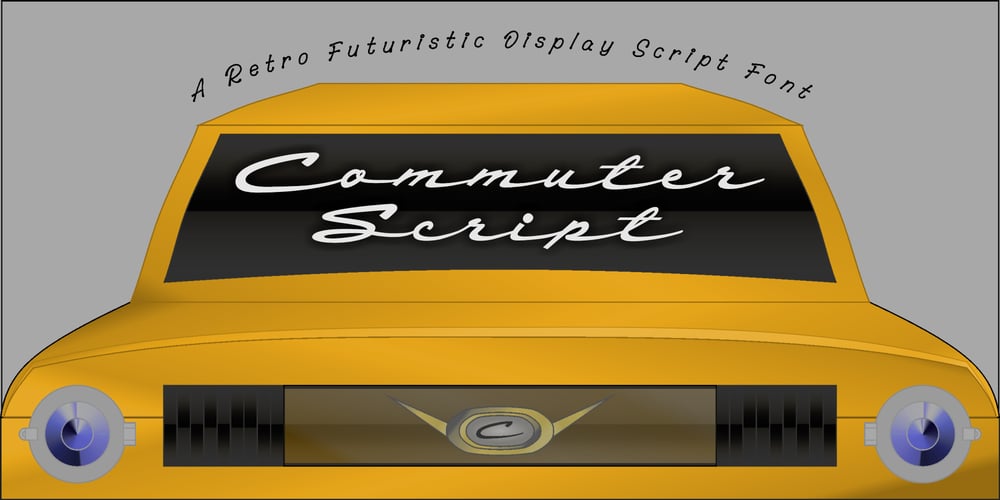
Commuter Script Font Family was designed by Muhammad Jauhar Azmi and published by Brainware Graphic. Commuter Script contains 1 styles and family package options. Commuter Script is a retro futuristic display script font inspired by retro and vintage emblem on a vintage car which has a futuristic technology. Commuter Script will be nice for logo type and branding design project with futuristic nuance.